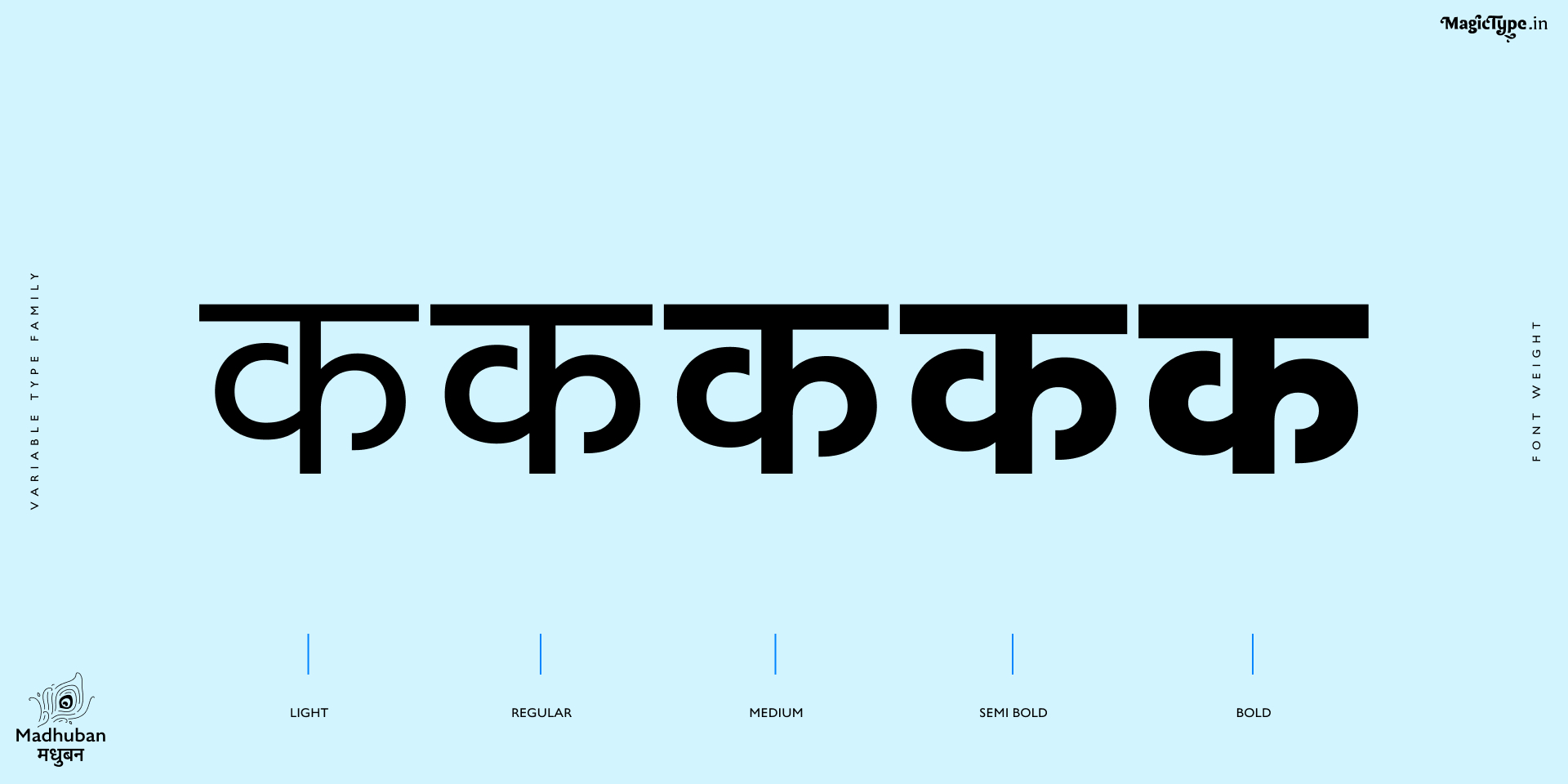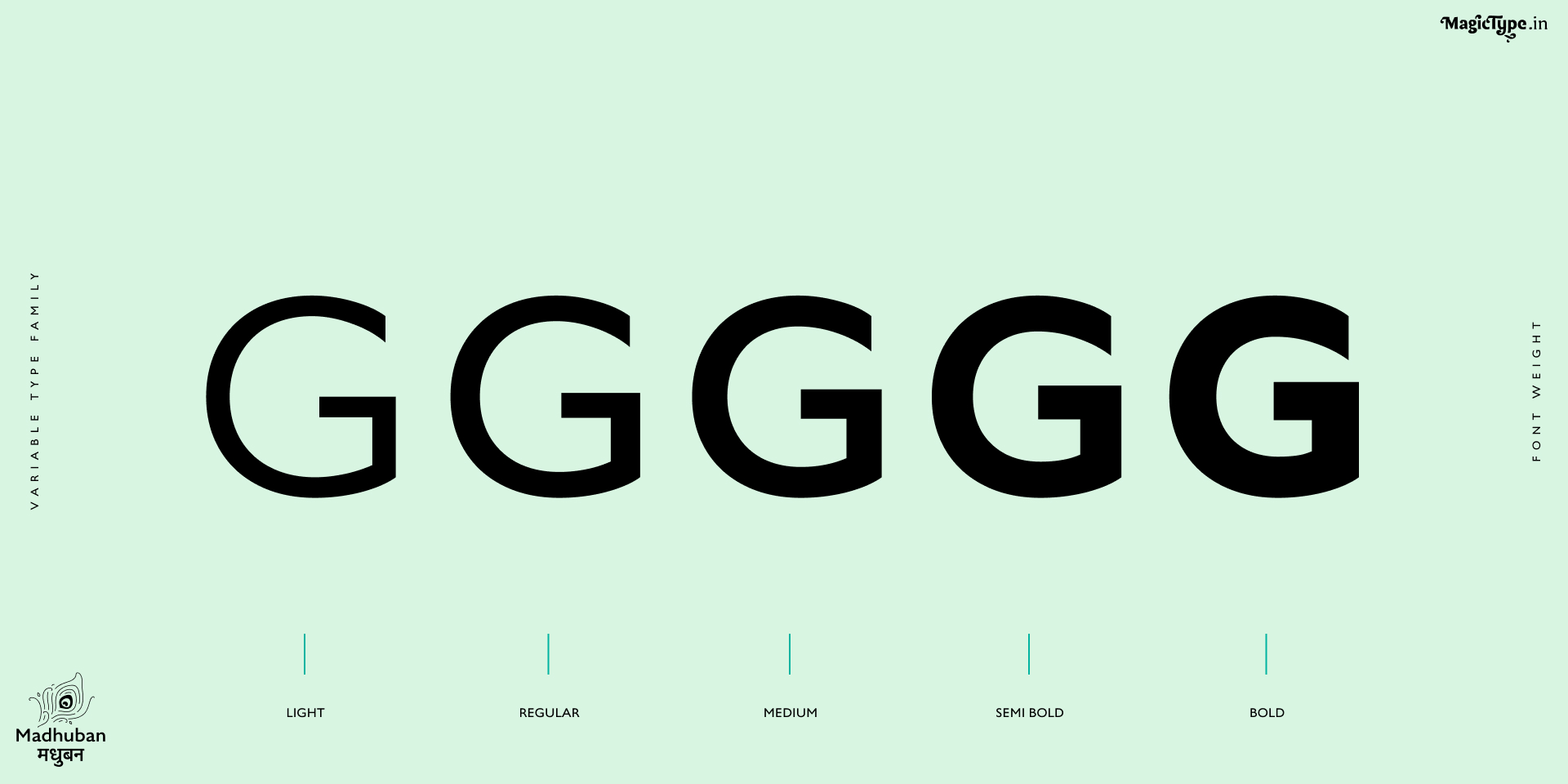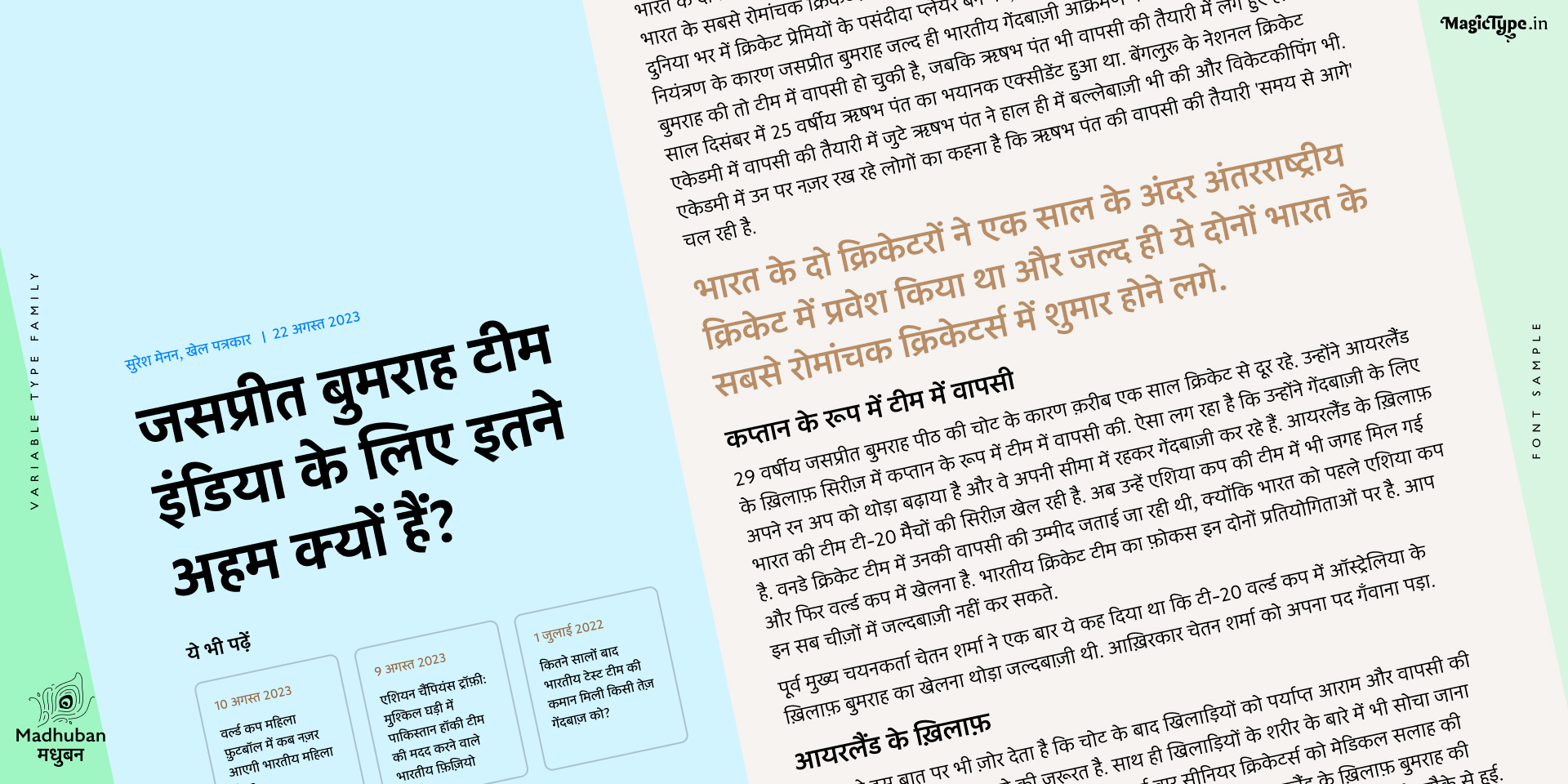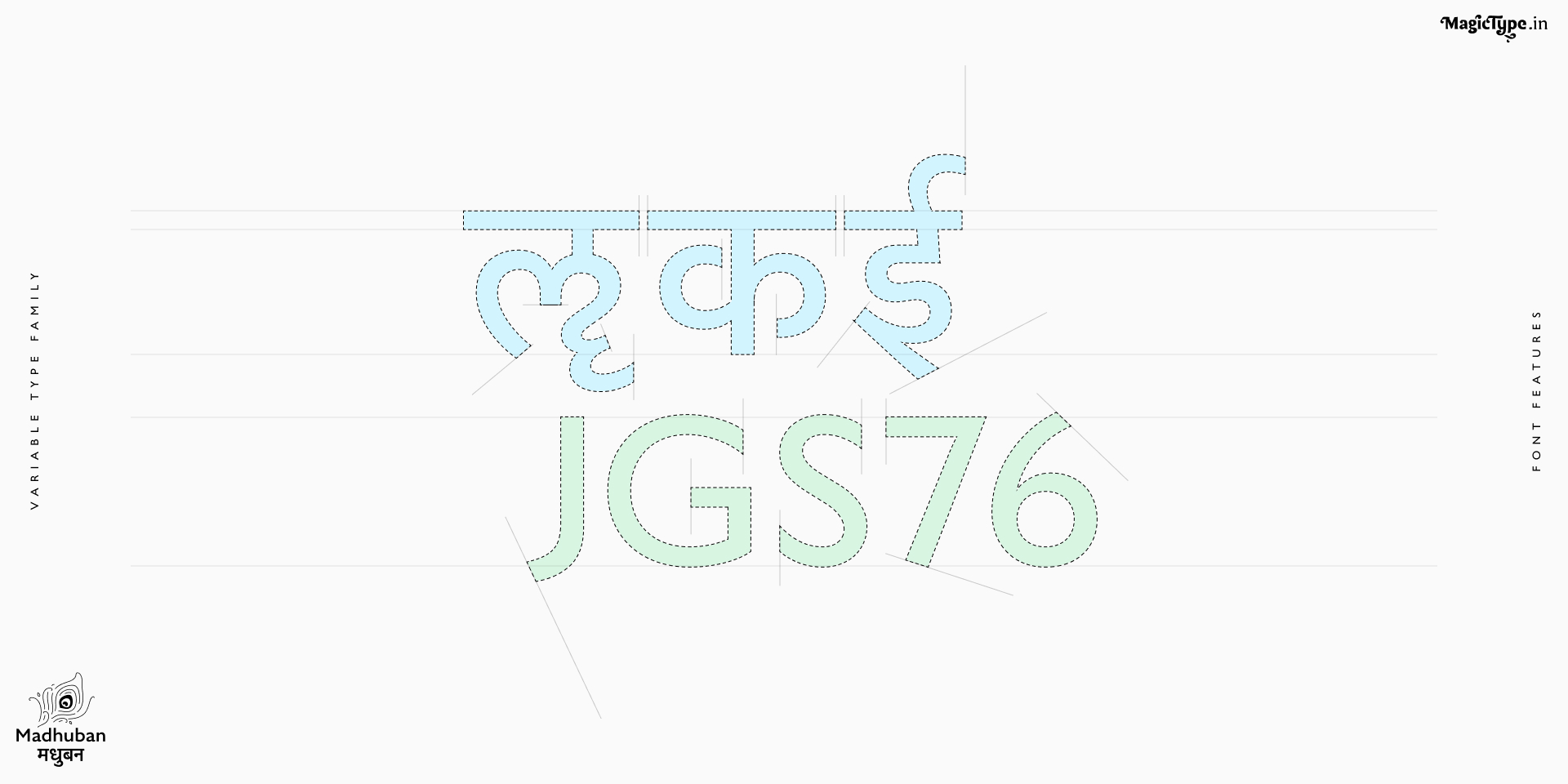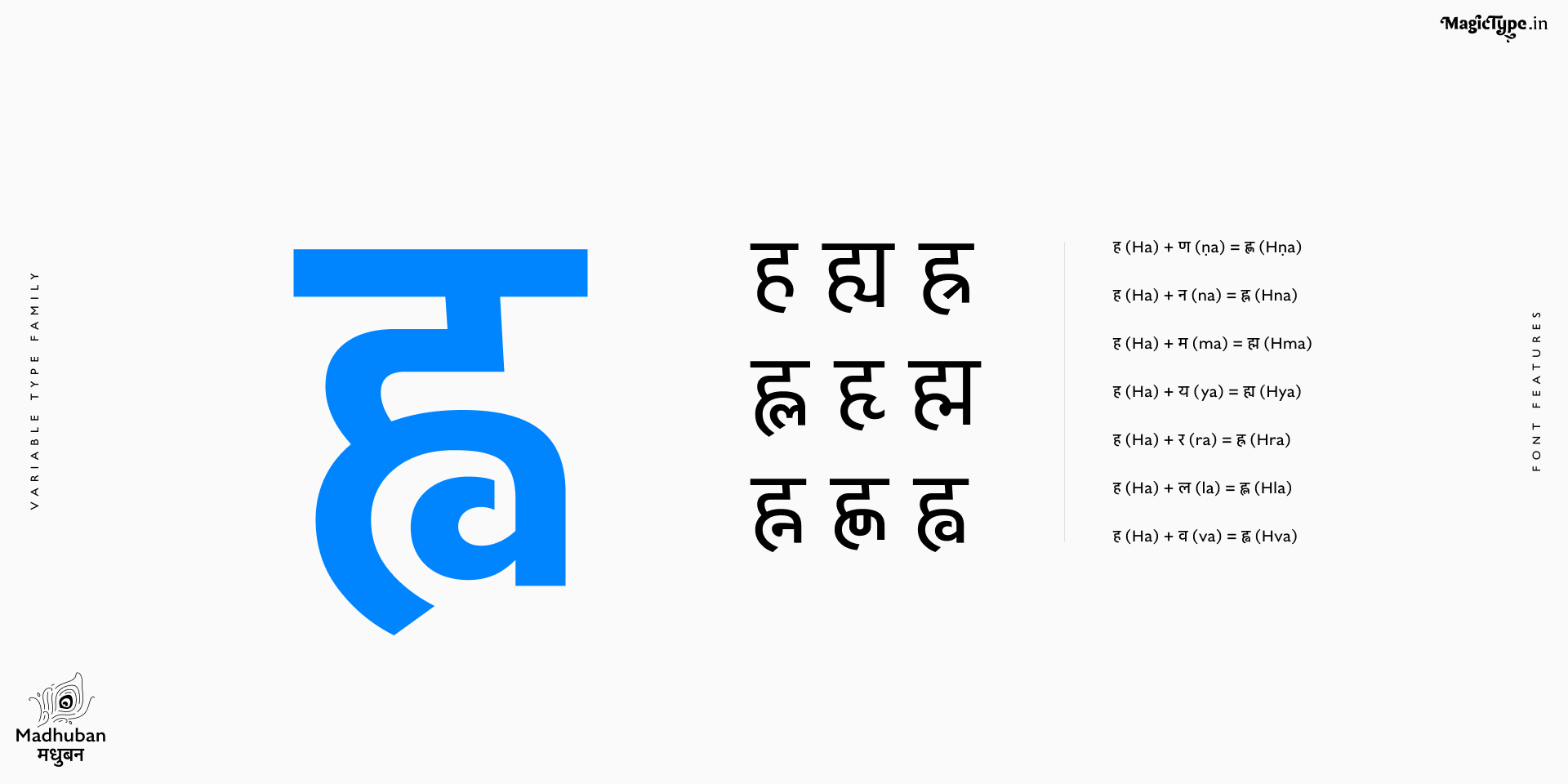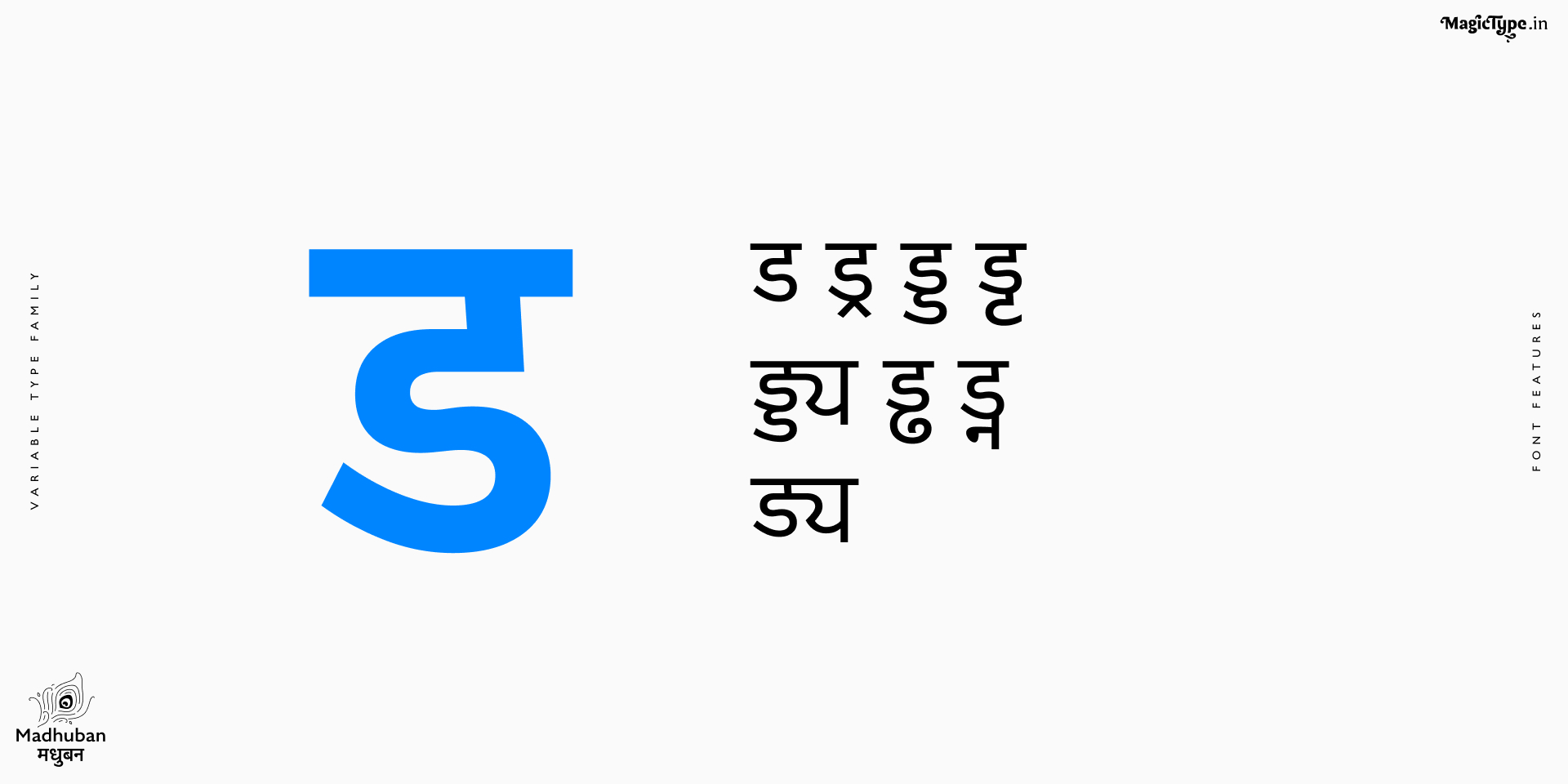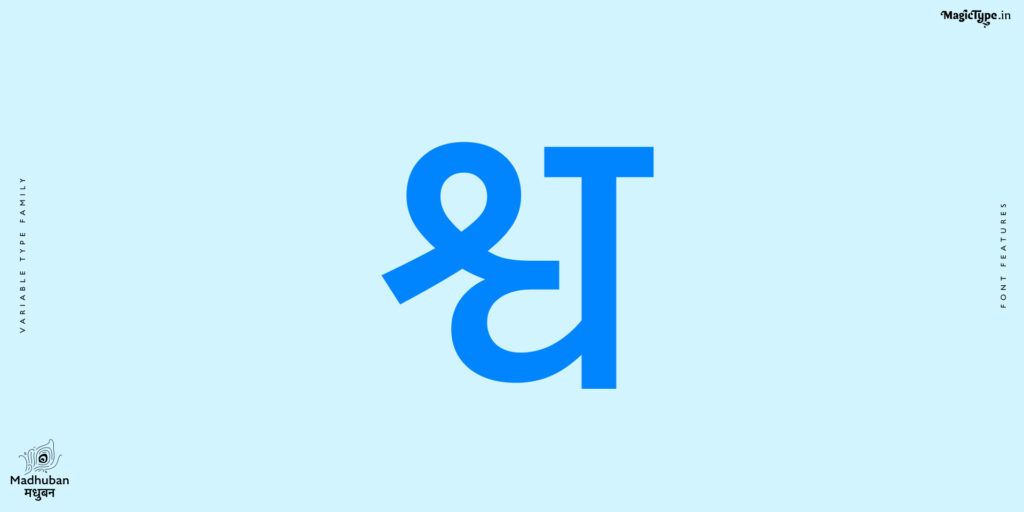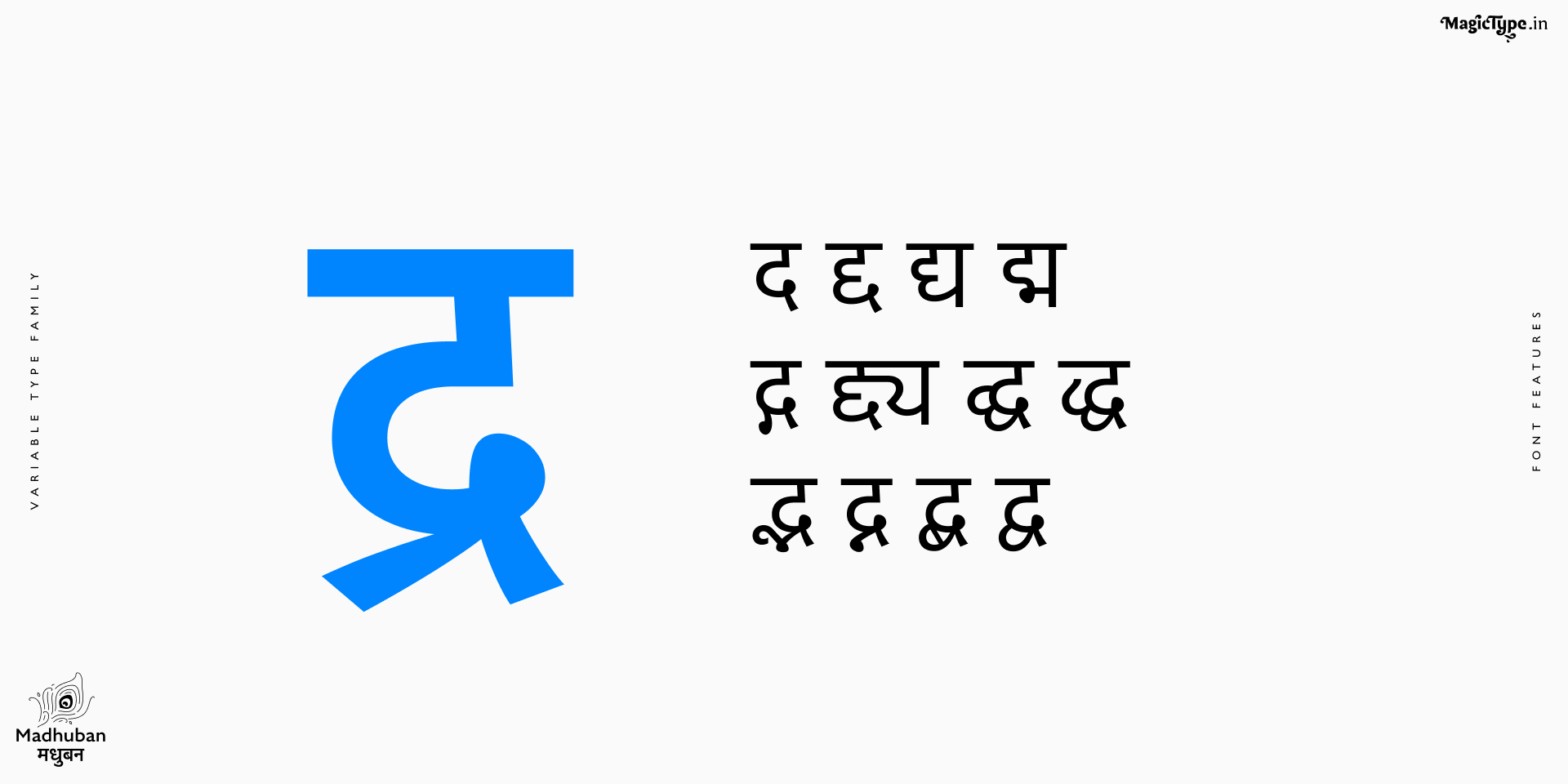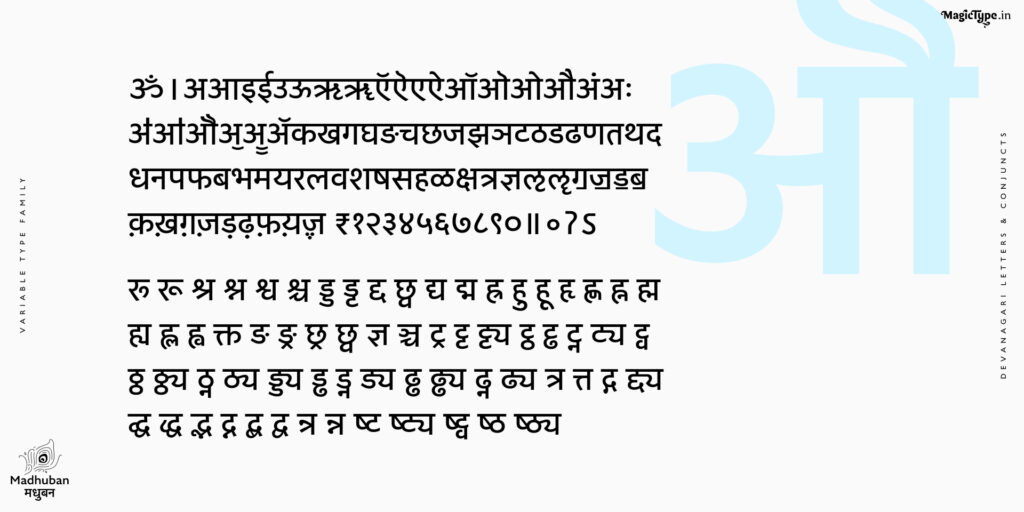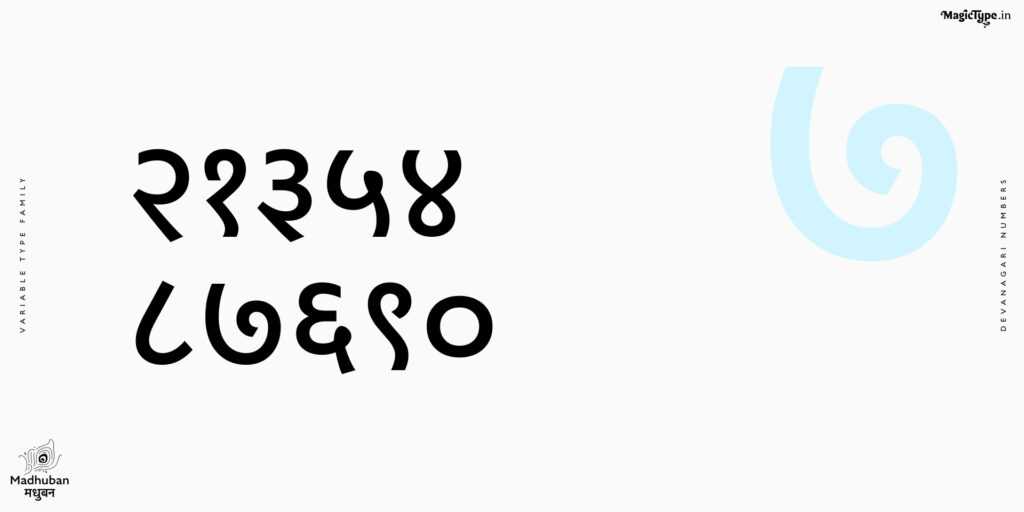
Madhuban's design principles are rooted in a humanist geometric approach, aiming to strike a delicate balance between precision and organic flow. The intricate mono-linear characters find a harmonious blend of geometric shapes and humanistic strokes. The Devanagari and Latin glyphs, together, embrace a clean geometric structure to maintain visual coherence with each other. The idea of family is not just to build a sense of visual unity when used together, but also to capture the essence of each script. This typeface is versatile in terms of uses. The proportions are suitable for both; display and body type.
Scripts: देवनागरी & Latin | Classification: Mono-linear Sans serif | Genre: Modern | Designed by Jaikishan Patel
A clean, geometric humanist typeface in Devanagari and Latin
The Typeface
The Madhuban concept
India is a land of rich cultural diversity, where extremely diverse languages and scripts coexist harmoniously. In an era marked by diverse linguistic interactions, multiple languages often converge for communication. This story starts with Devanagari & Latin script together. The Devanagari script, used for Sanskrit, Hindi, Boro, Dogri, Nepali, Marathi, Sindhi, Awadhi, Braj, Chhattisgarhi, Maithili, Haryanvi, Bhili, and several other languages, carries centuries of cultural heritage from the northern and central parts of India. And, the Latin script represents a global language that transcends borders. Moreover, within India, Latin is extensively used for English communication and transliteration of Indian scripts across various fields, including technology, cultural exchange, and communication.
When different languages are used together for one communication, its a primary need for individual scripts to share common visual characteristics, forming a unified visual language.
The genesis of Madhuban arises from the recognition of the need for a typeface that transcends cultural boundaries, facilitating communication in both Devanagari and Latin scripts without compromising on aesthetic integrity. The name “Madhuban” refers to a beautiful blooming Jungle or a place where diverse elements come together in a fresh and vibrant display of unity. The long-term vision for this project involves expanding the Madhuban family to include many more scripts in the future.
When different languages are used together for one communication, its a primary need for individual scripts to share common visual characteristics, forming a unified visual language.
The genesis of Madhuban arises from the recognition of the need for a typeface that transcends cultural boundaries, facilitating communication in both Devanagari and Latin scripts without compromising on aesthetic integrity. The name “Madhuban” refers to a beautiful blooming Jungle or a place where diverse elements come together in a fresh and vibrant display of unity. The long-term vision for this project involves expanding the Madhuban family to include many more scripts in the future.
The Type Family
The font family has a variable weight, with 5 predefined weights; light, regular, medium, semibold, and bold. It features over 1200 precisely crafted glyphs, with standard and discretionary ligatures, Akhand and linear conjuncts for Devanagari, mathematical features, currency symbols, ordinals, fractions, accents, lining figures, tabular figures, alternative glyphs, and other OpenType features. Currently, the type family has extensive language support for over 105 languages based on Devanagari and Latin.